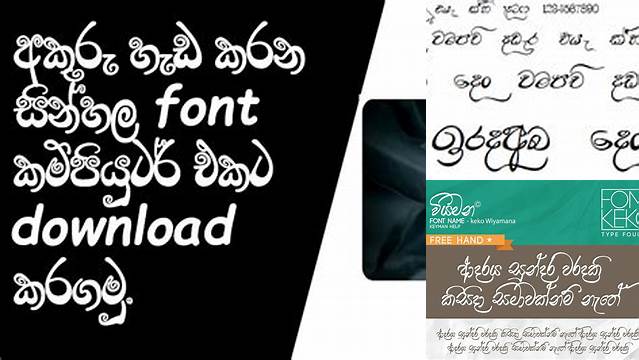
Are you looking to spice up your Sinhala text with some elegant flair? Then you're in the right place! This guide is your one-stop shop for all things related to Sinhala cursive fonts download. We'll dive deep into the world of these beautiful fonts, exploring where to find them, how to install them, and even some tips on how to use them effectively. So, grab a cup of tea, and let's get started!
H2: Unveiling the Beauty of Sinhala Cursive Fonts
Guys, have you ever wondered what makes a good font? Well, a Sinhala cursive fonts download can add a touch of personality to your work, especially when you want to create a handwritten feel. Cursive fonts, also known as script fonts, mimic the flow of handwriting, making your text appear more personal and artistic. And when it comes to Sinhala, the elegant curves and loops of the script can be truly mesmerizing. With a good Sinhala cursive fonts download, you can transform your documents, social media posts, or even your website design. Think about it – a wedding invitation with a beautiful cursive Sinhala font, or a poster for a cultural event that pops with a unique script style. The possibilities are endless. Choosing the right Sinhala cursive fonts download is important. You want a font that is readable, beautiful, and fits the context of your project. It's all about finding the perfect balance. Consider the audience. Is it for children, adults, or a formal setting? Then you can start looking at different fonts to find one that suits your needs. You will find that the right font is the key to making your writing stand out. If you are working on something like a logo or a header, then you might want something very fancy and elaborate. But, if you are creating a body of text, then you will want something easier on the eyes. Some fonts look great in large sizes but become difficult to read when they are small. With a great Sinhala cursive fonts download, you can create visually stunning works that resonate with your audience.